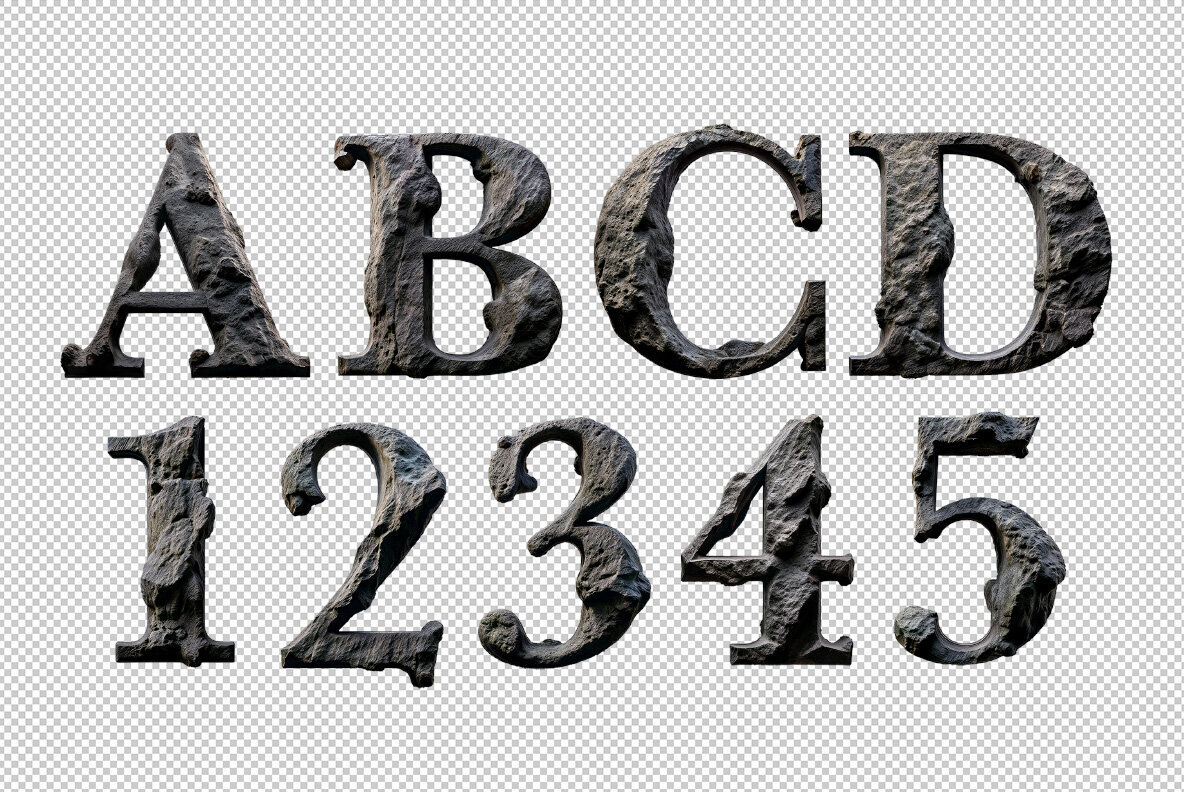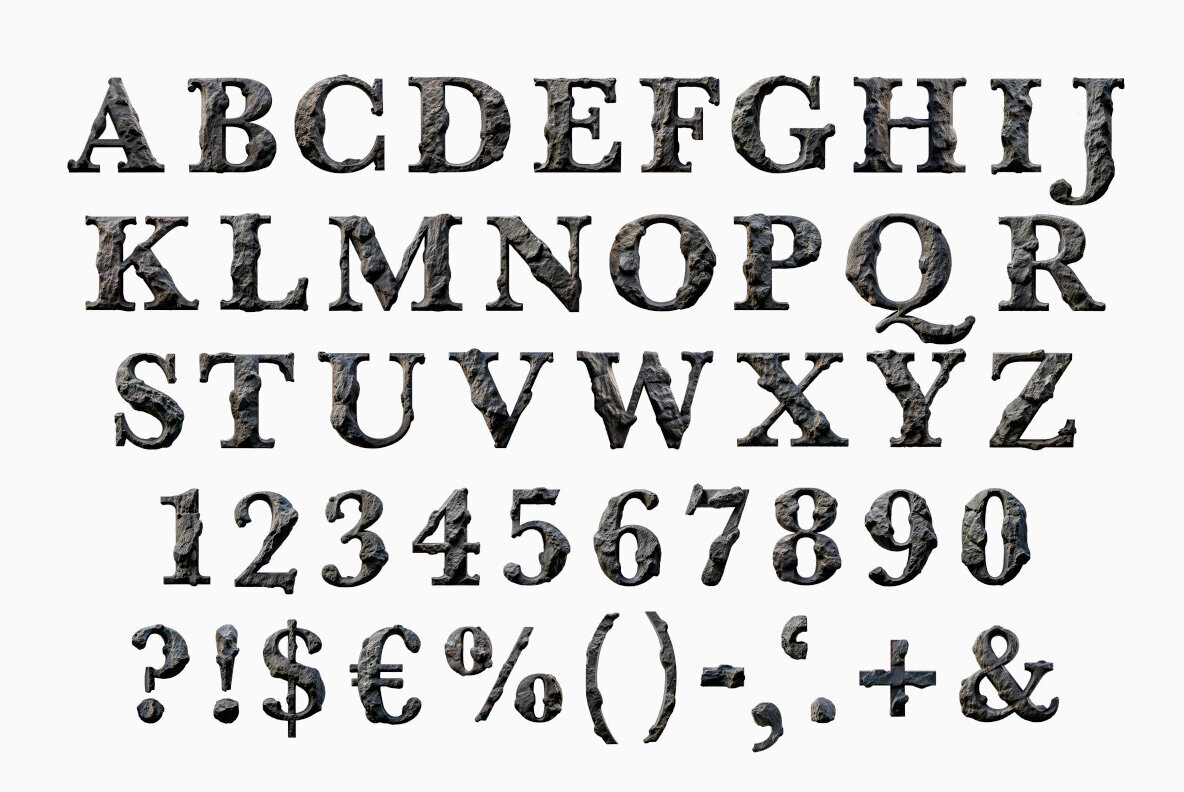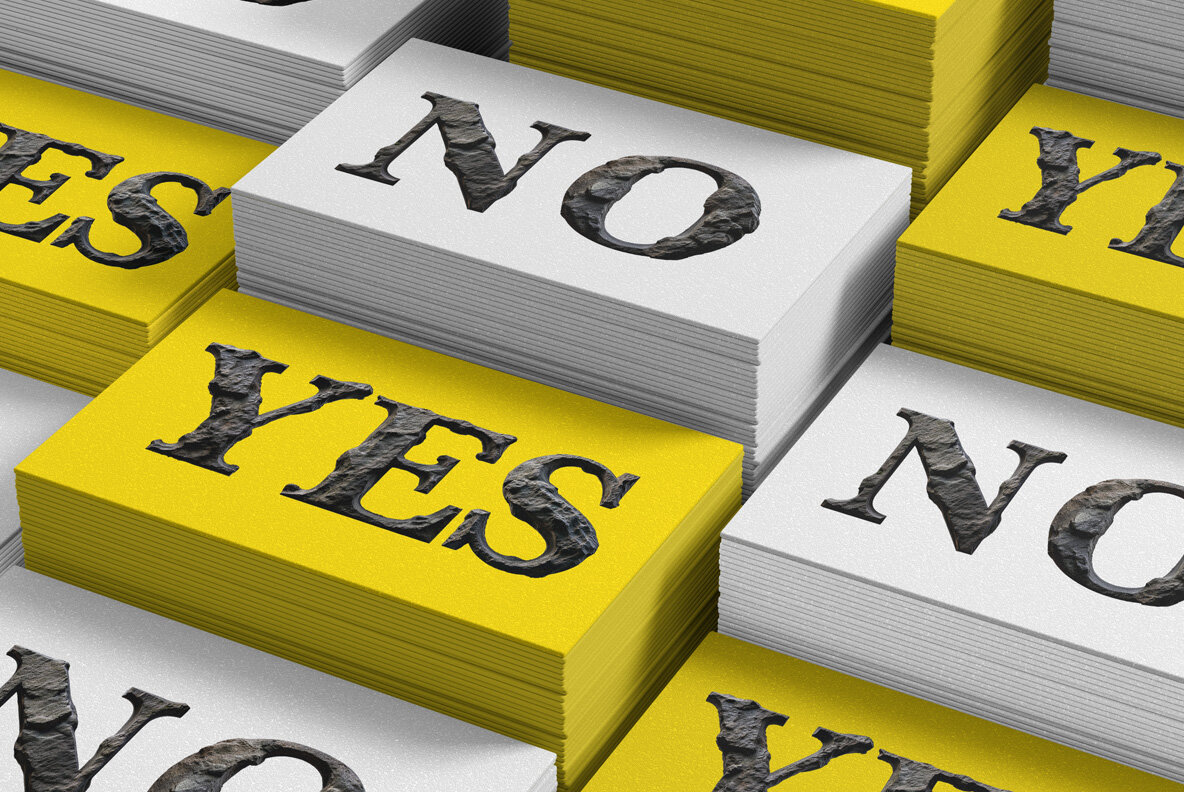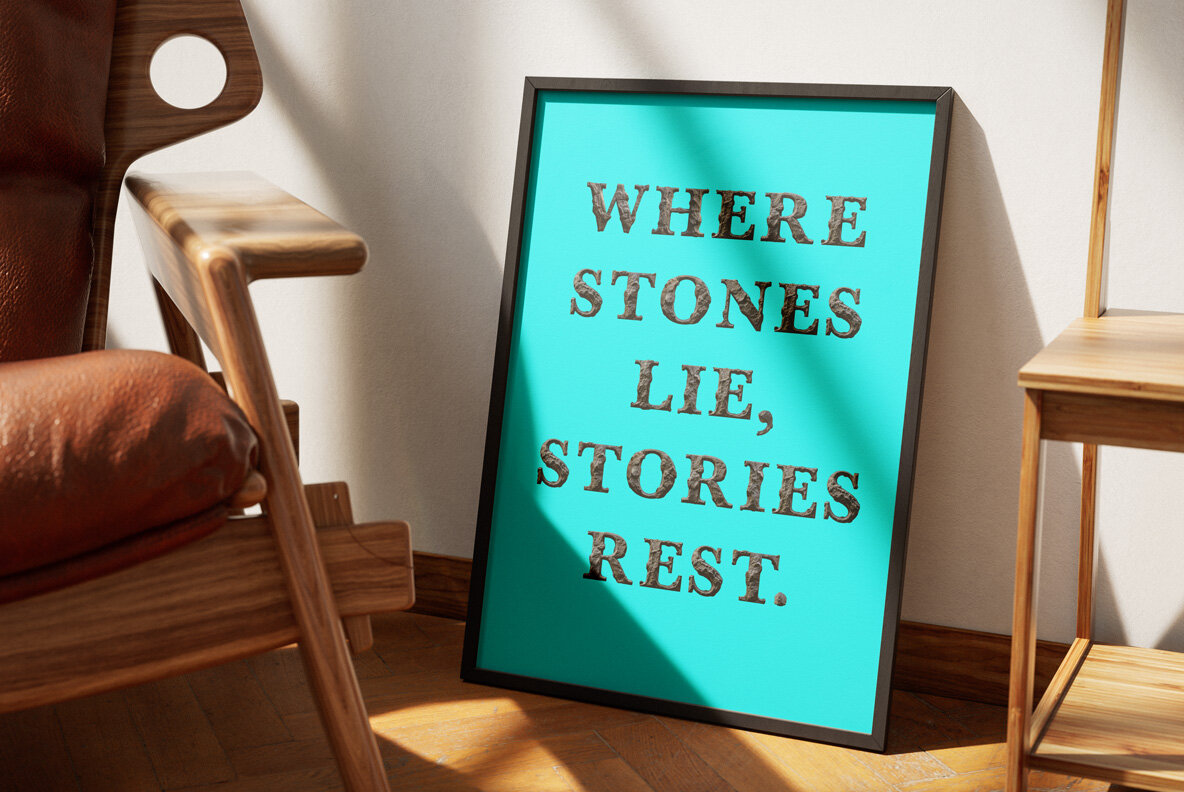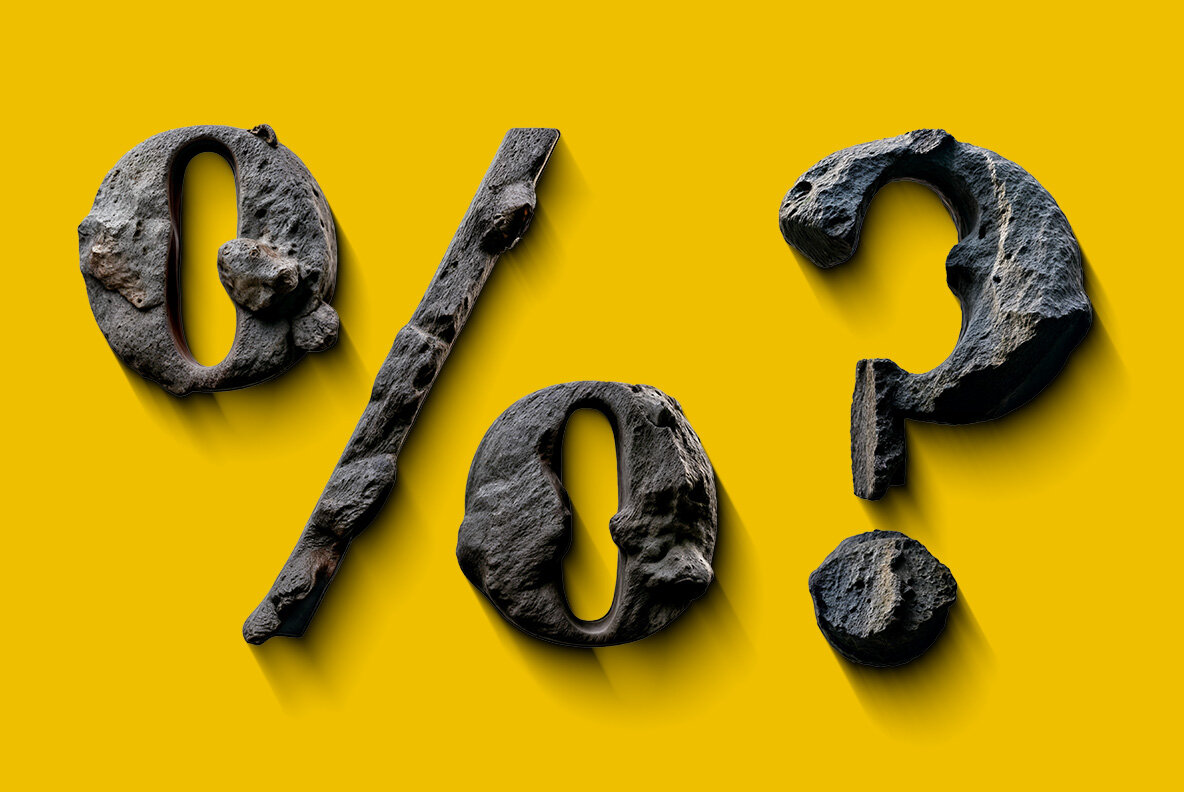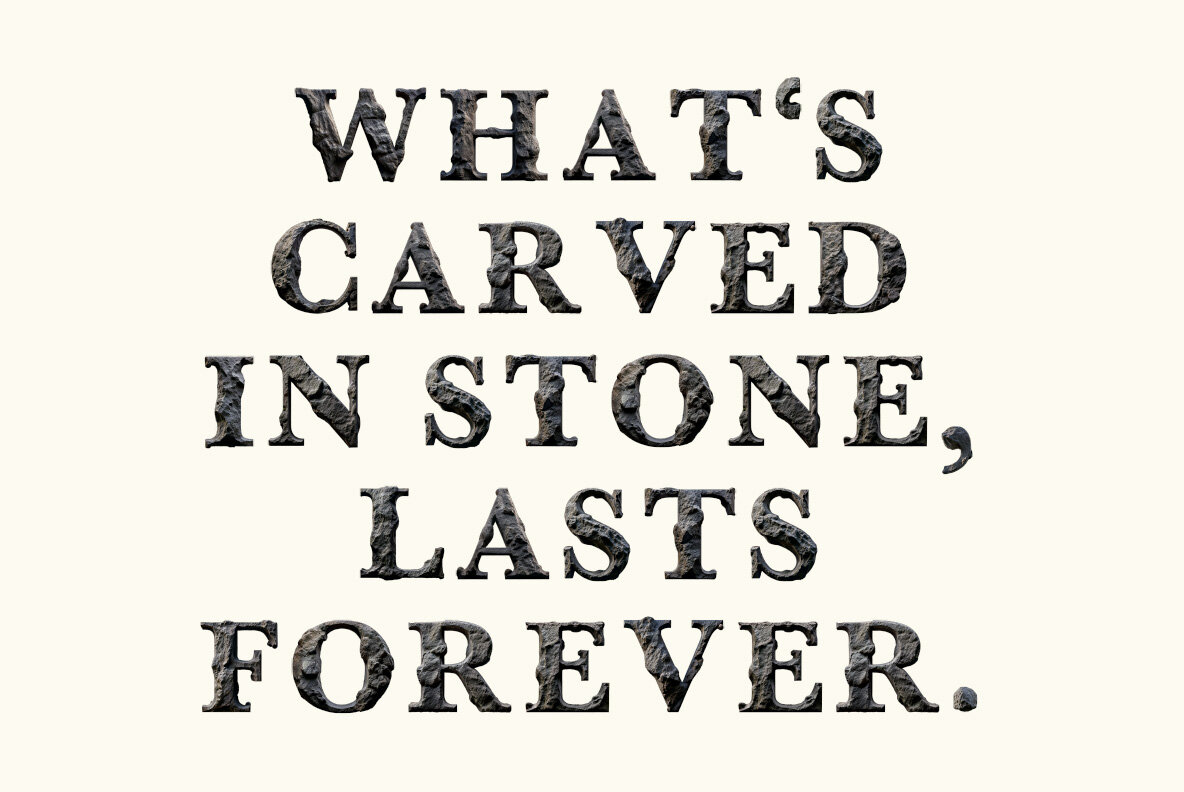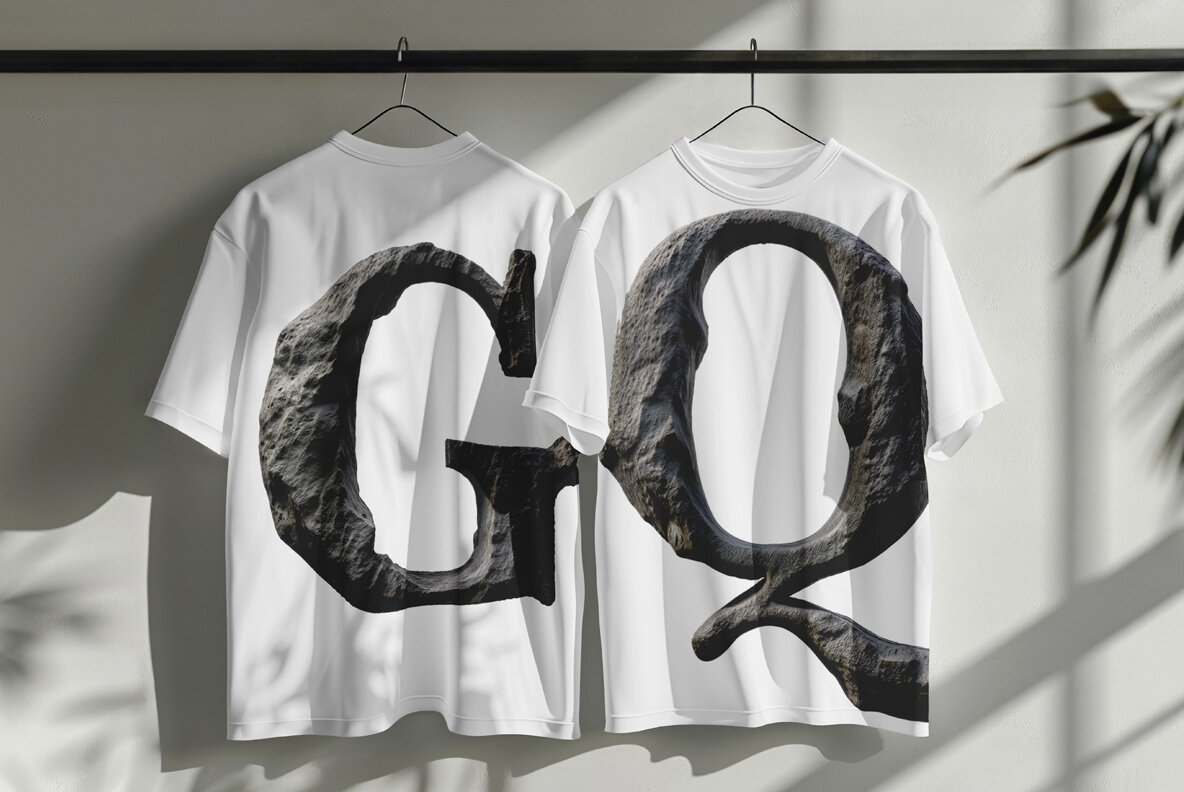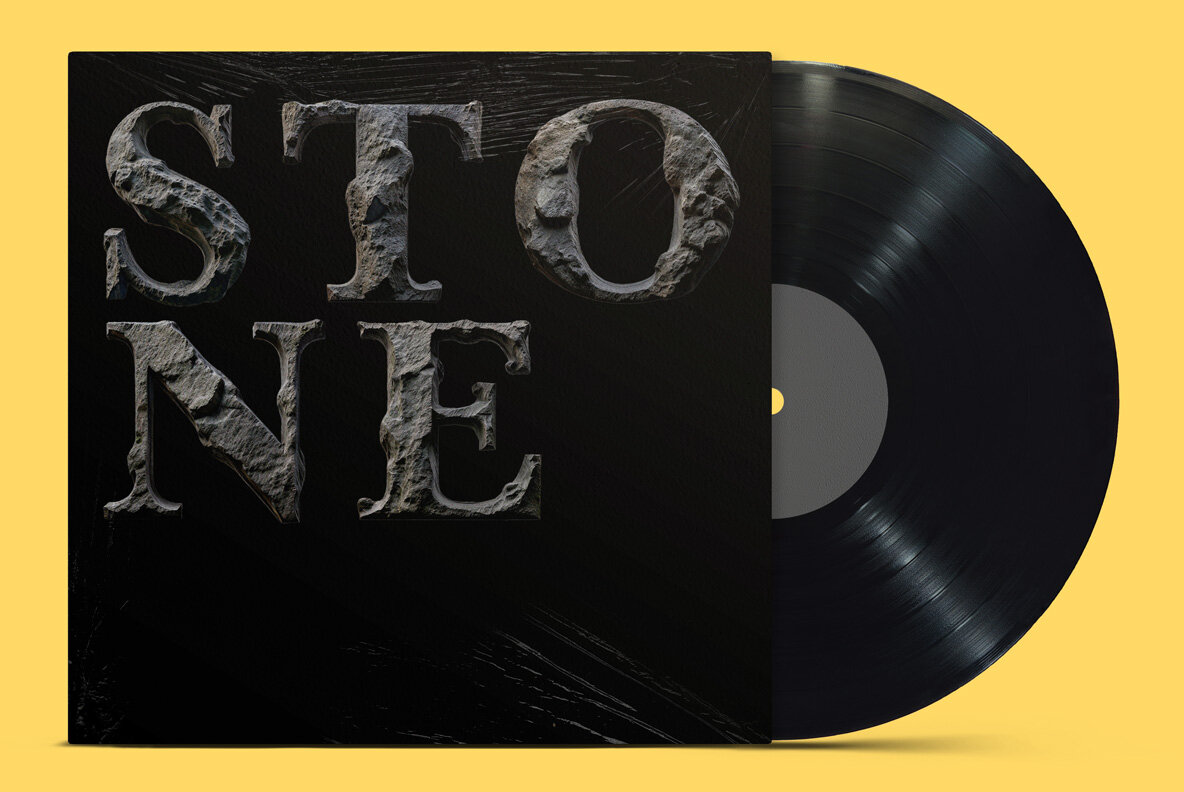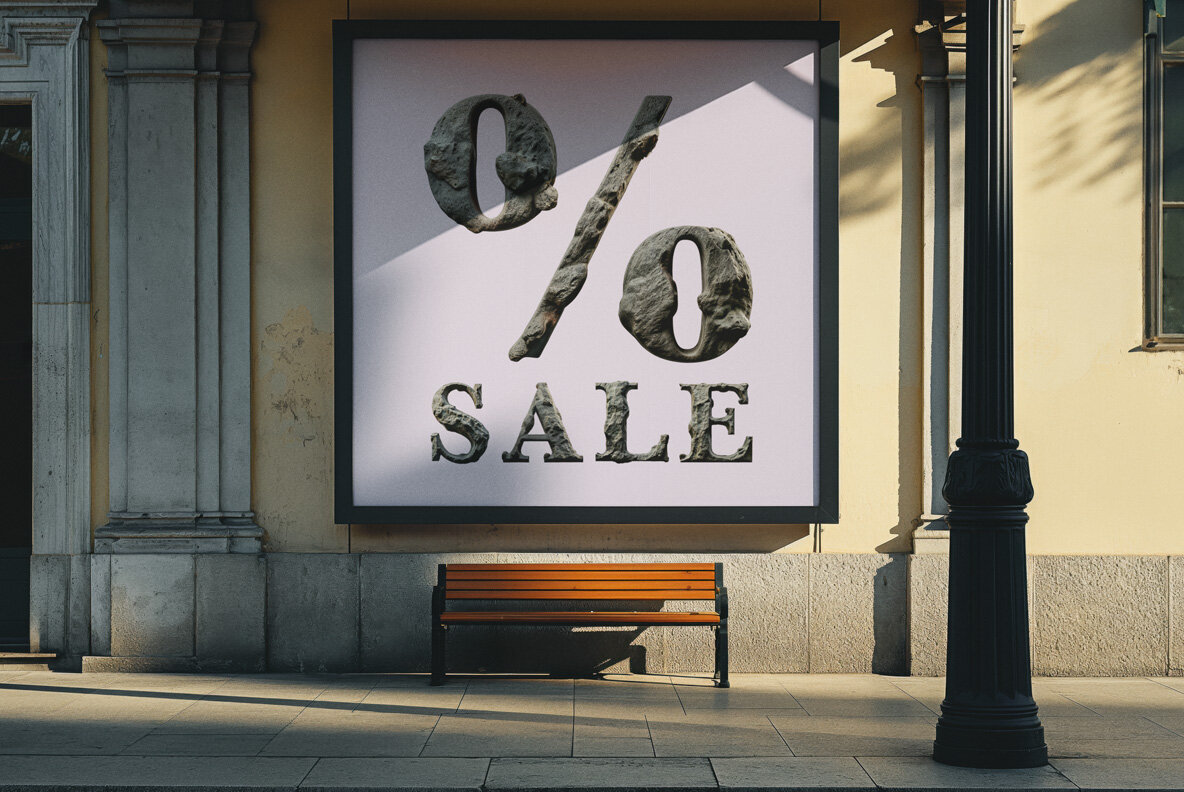
Stone takes center stage with the Rocky Relief Font, a rugged masterpiece of stone-inspired typography. Each letter resembles a black stone, chiseled and weathered to perfection, evoking the raw beauty of nature’s rugged surfaces. The textured stone alphabet feels organic and carved, featuring uneven bumps, ridges, and crevices that mimic weathered rock formations. Its rough, textured appearance lends a tactile, three-dimensional quality, as if sculpted by time itself. The dark grayish tone and intricate details create a sense of earthy solidity, perfect for designs seeking a bold, natural aesthetic. Whether you're drawn to stone lettering for its rugged charm or its organic elegance, the Rocky Relief Font is a striking choice for stone-inspired creativity.